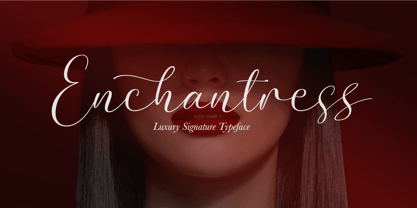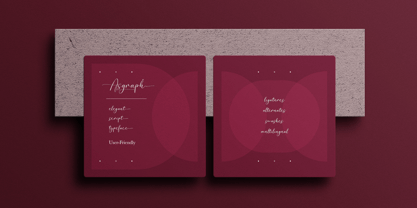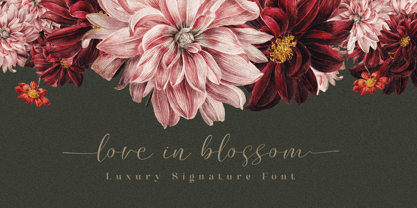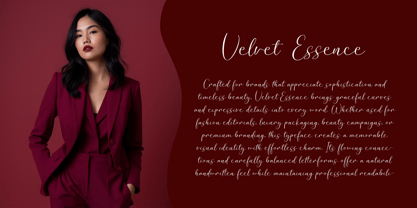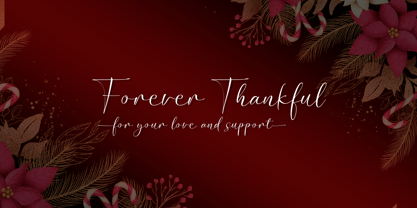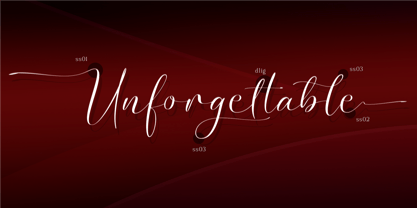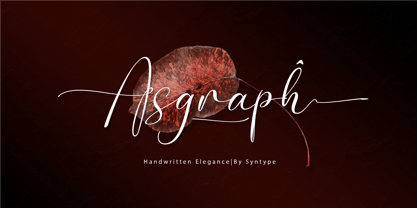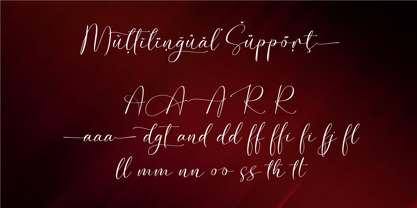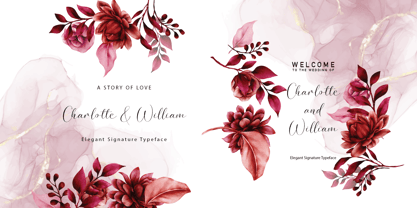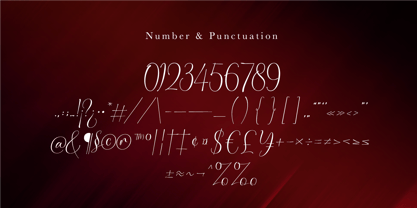
Asgraph
by SynType
The Asgraph Font Family was designed by M Khafid and published by SynType. Asgraph contains 1 styles. More about this family
Asgraph is a modern signature script font featuring elegant, delicate, and flowing letterforms. Designed with graceful strokes and a natural handwritten feel, it brings sophistication to every design project. Perfect for branding, logos, wedding invitations, social media, packaging, photography, fashion editorials, and luxury product presentations. With its refined curves and stylish character, Asgraph adds a personal and timeless touch while maintaining excellent readability and visual appeal.
Designers: M Khafid
Foundry: SynType